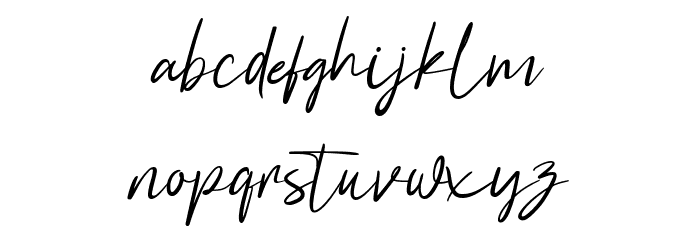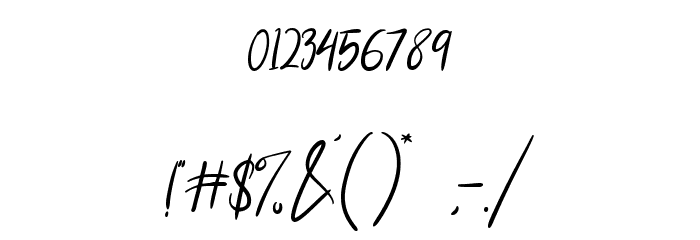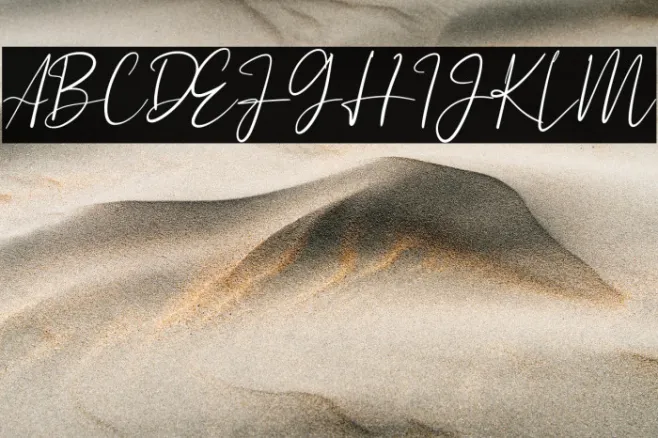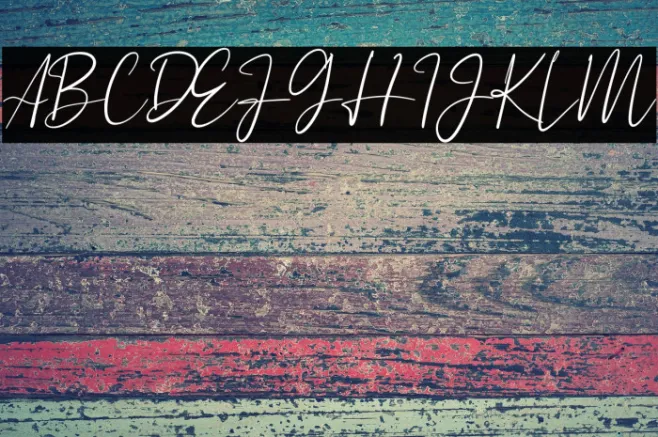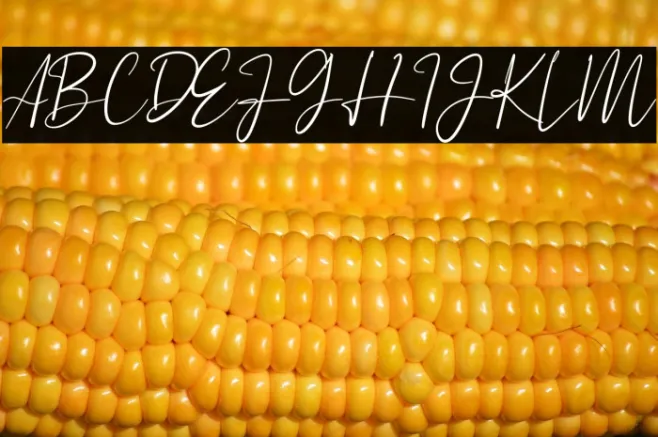
Astagina Signature Font
This font exudes elegance and sophistication with its fluid, cursive style. The characters are crafted with a smooth, flowing motion that mimics the natural handwriting of a skilled calligrapher. The uppercase letters are tall and graceful, while the lowercase letters maintain a consistent flow, creating a harmonious balance. The numbers and special characters are designed with the same attention to detail, ensuring a cohesive look across all elements. This font is perfect for adding a personal touch to any project, with its artistic flair and refined appearance.
A fluid, cursive font with an elegant and sophisticated style.
- Font: Astagina Signature
- Proposed Projects: Ideal for wedding invitations, personal branding, elegant logos, and artistic projects.
- Category: Script
- Overall Style: Elegant
- Use Case: Logos, Invitations, Personal Branding